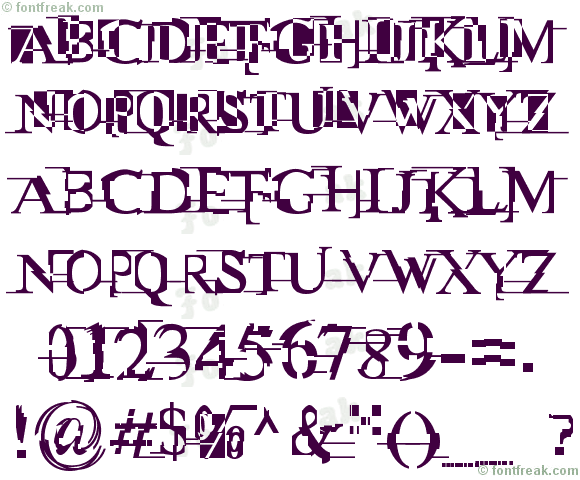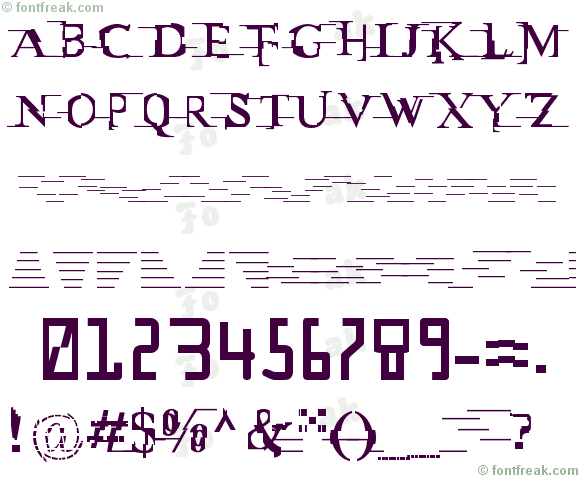
Miltown
Miltown II
About Miltown
Miltown by Apostrophic Labs is a striking display font that effortlessly combines modern aesthetics with a touch of vintage charm. This freeware typeface, released in the year 2000, features a unique blend of serif and decorative elements, making it an ideal choice for projects that require an eye-catching yet elegant typographic solution. The font showcases a moderate stroke weight with varying contrast, creating a dynamic visual appeal. Its well-balanced spacing enhances readability, while the distinctive flourishes add a playful character to each letter.
The Miltown font excels in a variety of use cases, making it a versatile asset for designers and content creators alike. It is particularly well-suited for wedding invitations, where its romantic flair can set the tone for a special occasion. Additionally, it shines in movie posters, lending a dramatic yet refined touch that captures attention. Restaurant menus can benefit from its stylish presentation, allowing culinary offerings to stand out in a competitive market. Furthermore, Miltown is perfect for branding materials, enabling small business owners to convey a unique personality that resonates with their target audience.
Graphic designers and content creators will find Miltown to be an invaluable tool in their creative arsenal. Its distinctive style appeals to those looking to make a statement while maintaining a sense of approachability. This font's ability to balance elegance with playfulness makes it a standout choice for a wide range of projects.
In conclusion, the Miltown font free download offers a captivating option for anyone looking to elevate their design work. Its unique visual characteristics and versatile applications ensure that it stands out in a crowded marketplace, making it a must-have for contemporary typography enthusiasts.